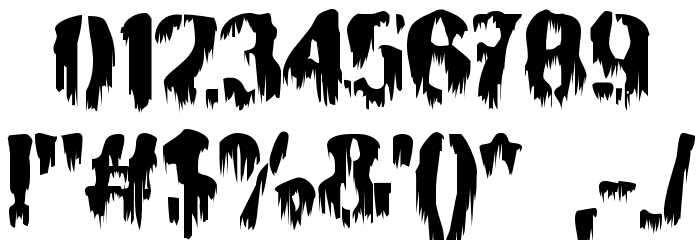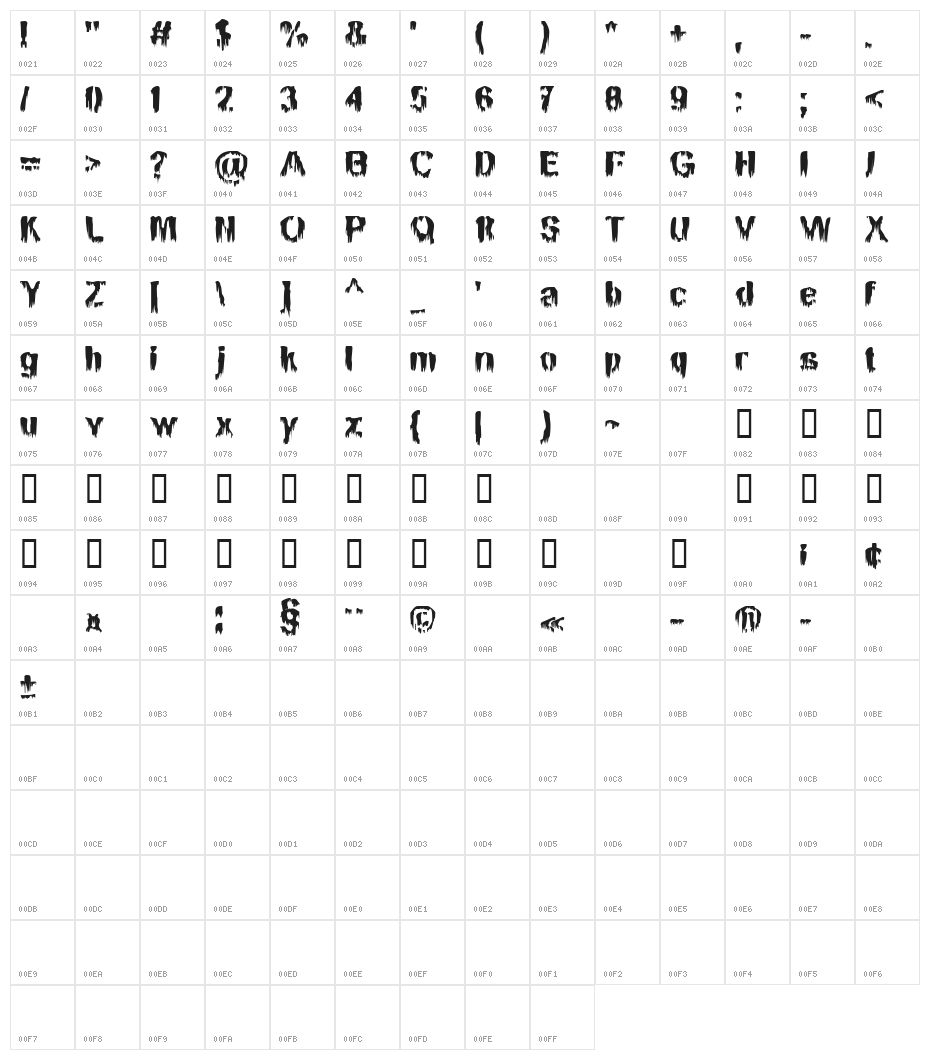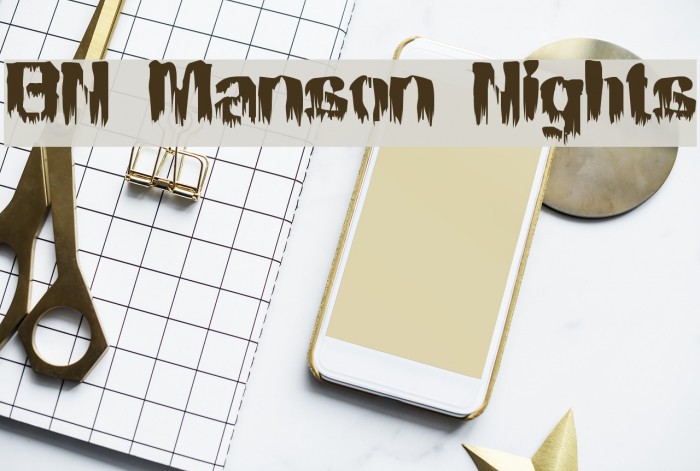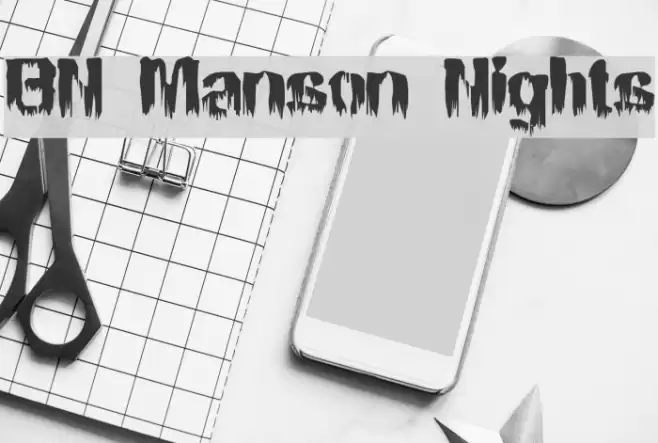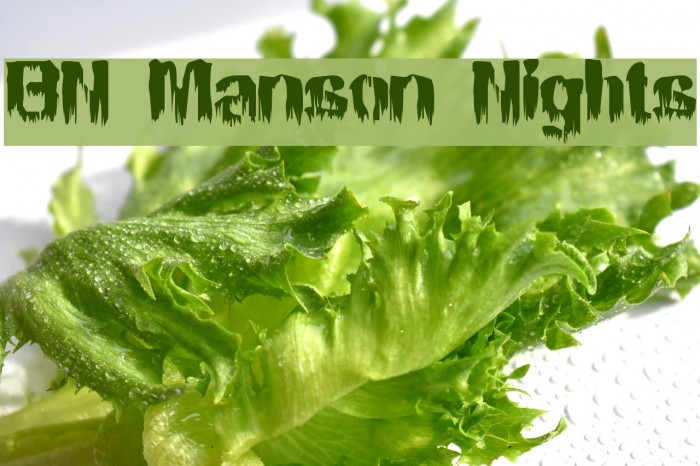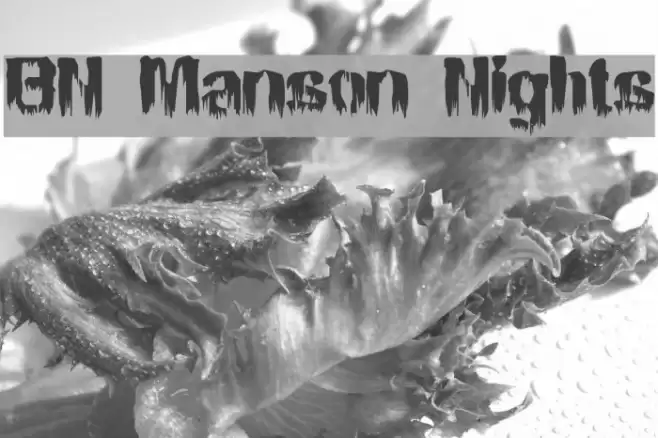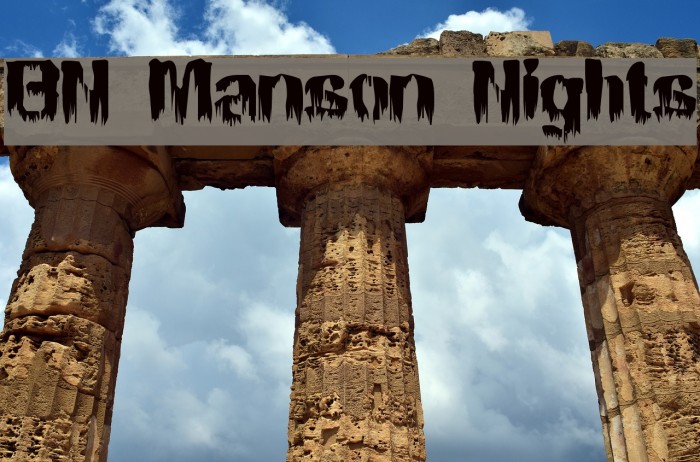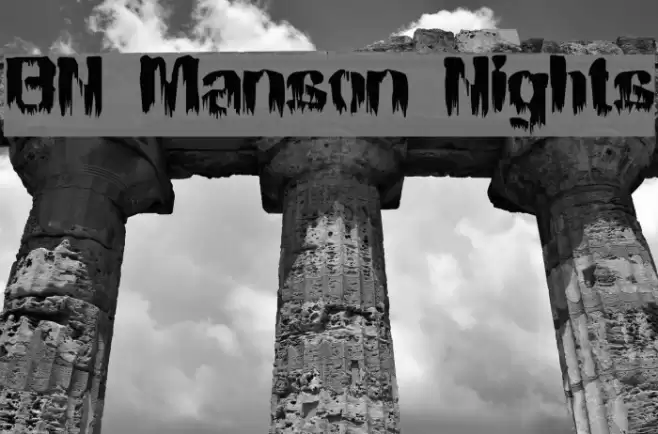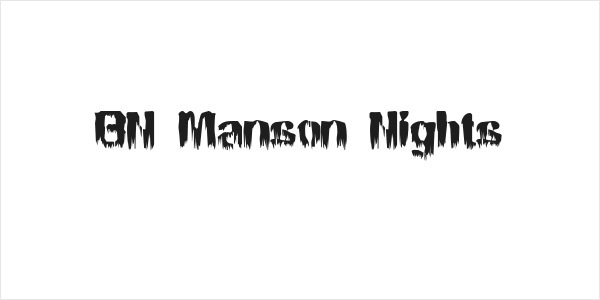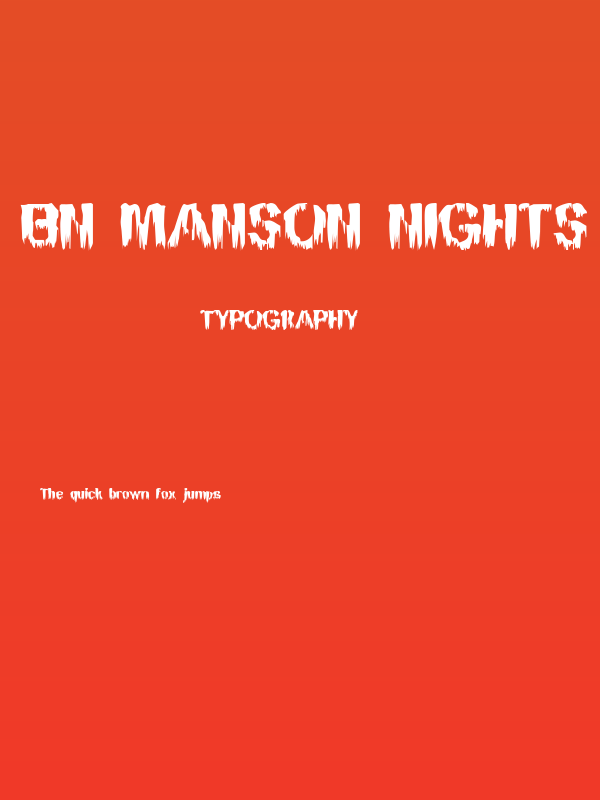
BN Manson Nights Font
BN Manson Nights Description
This font features a dramatic and edgy design, with characters that appear to be dripping or melting, creating a sense of movement and chaos. The uppercase and lowercase letters, as well as numbers and special characters, all share this unique style, making it ideal for projects that require a bold and unconventional look. The jagged edges and irregular shapes give it a horror or Halloween-themed aesthetic, perfect for creating a spooky atmosphere. Despite its decorative nature, the font maintains legibility, ensuring that the text remains readable while still capturing attention.
| Proposed Projects | Ideal for Halloween-themed posters, horror movie titles, haunted house flyers, and any project needing a dramatic, eerie touch. |